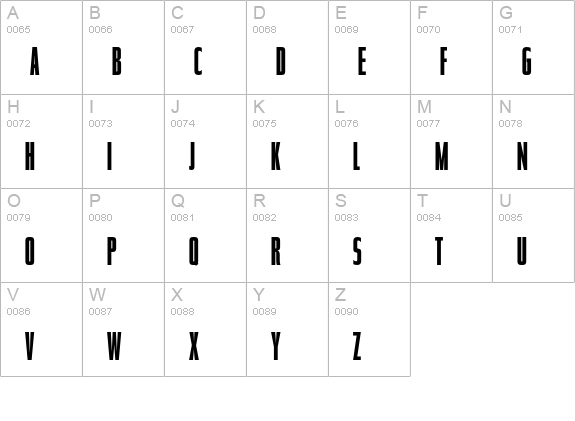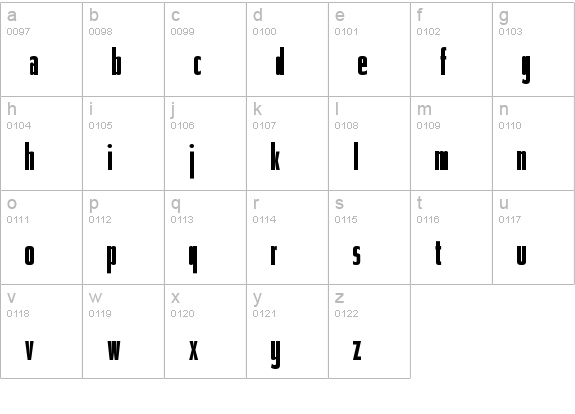
Tasse-MediumCompressed font is a versatile and stylish typeface that exudes elegance and sophistication. This modern font showcases a unique blend of clean lines and compressed letterforms, making it perfect for a wide range of design projects. With its perfectly balanced proportions, Tasse-MediumCompressed font adds a touch of professionalism and refinement to any text. Whether used for headlines, body copy, or logos, this font commands attention and creates a lasting impression. What sets Tasse-MediumCompressed font apart is its ability to convey a sense of modernity while still maintaining a timeless appeal. Its sleek and streamlined design makes it ideal for contemporary branding, editorial layouts, and web design. The best part is that Tasse-MediumCompressed font is free to download at FontsMarket.com. This means that you can enjoy the beauty and versatility of this font without any cost or restrictions. Now, you can elevate your designs with this high-quality typeface without breaking the bank. Whether you're a graphic designer, web developer, or just someone looking to add a touch of sophistication to their personal projects, Tasse-MediumCompressed font is a must-have. Its clean and refined aesthetics make it a perfect choice for corporate presentations, fashion magazines, or any design that requires a touch of elegance. Download Tasse-MediumCompressed font for free at FontsMarket.com and unlock a world of possibilities for your creative endeavors. With this font, you can effortlessly elevate your designs and captivate your audience with its timeless appeal. Don't miss out on this opportunity to add a touch of sophistication to your projects – grab Tasse-MediumCompressed font today!